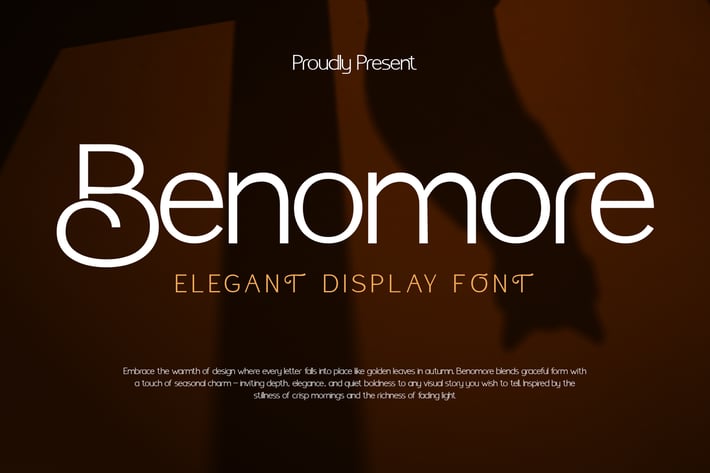
Benomore Sans Serif Font
Benomore Sans Serif Font is an elegant display font that exudes a warm, inviting, and quietly bold energy, reminiscent of autumn's gentle richness. It blends graceful forms with a touch of seasonal charm, perfect for creating inviting depth and sophisticated visuals. This font is ideally suited for fashion magazines, branding for luxury goods, seasonal campaigns, elegant invitations, editorial design, and any project aiming for a refined and artistic aesthetic. As a display font, it features unique and decorative letterforms that stand out, making it distinct from a standard sans-serif for body text. Its best use cases include high-impact headlines, distinctive logos, editorial spreads, sophisticated packaging, and emotional storytelling.
Benomore Sans Serif Font Suitable for luxury branding, fashion magazine layouts, elegant invitations, captivating social media graphics, and premium product packaging, as well as editorial headlines, book covers, wedding stationery, high-end advertising, art gallery promotions, exquisite logos, expressive posters, stylish web headers, film titles, beauty product branding, sophisticated event branding, design portfolios, mood boards, fine art prints, and exclusive marketing materials.